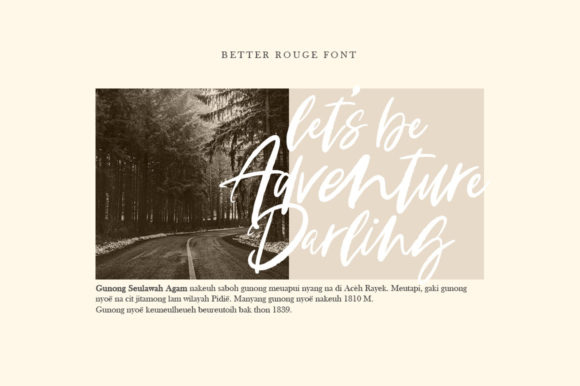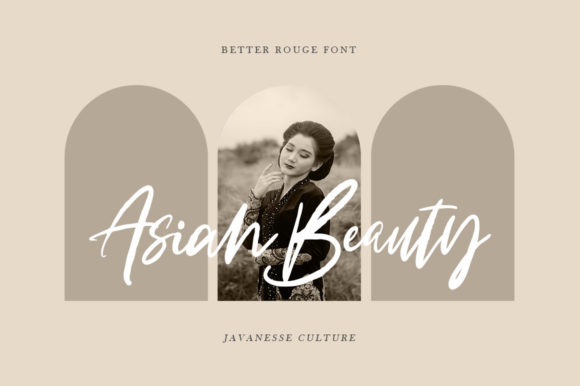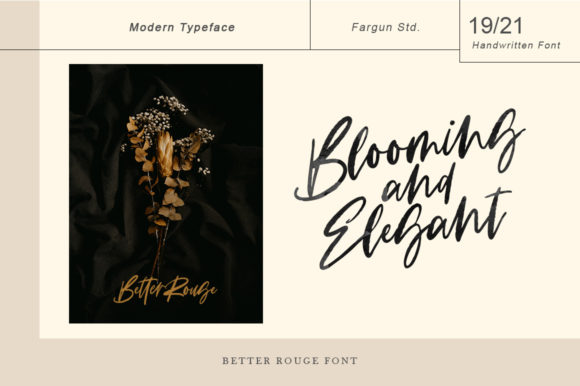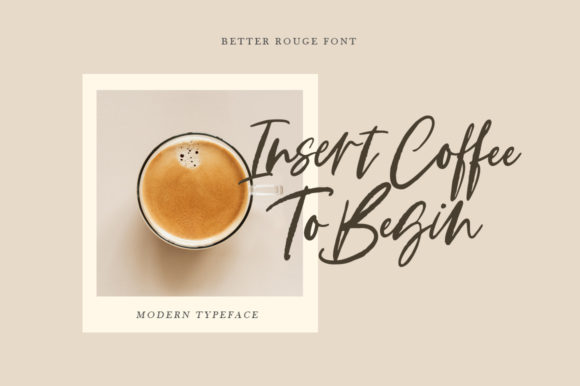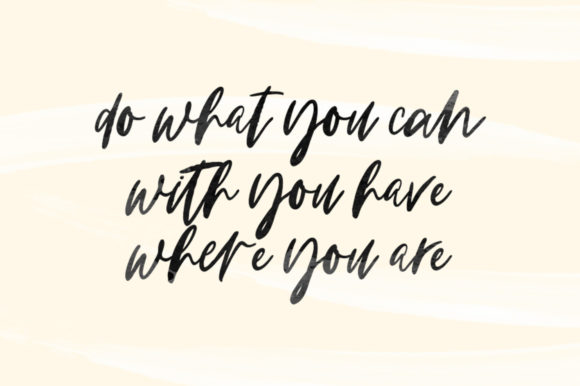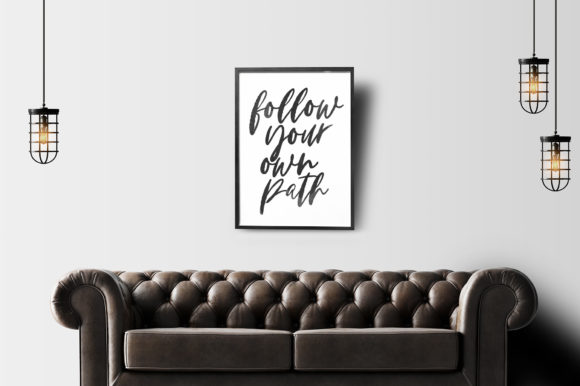
Discover the Magic of Better Rouge Font
Have you ever been working on a project, and suddenly, a burst of inspiration strikes? You envision the perfect combination of colors, textures, and typography, and your creativity goes into overdrive. For designers, these moments are what make the craft so rewarding.
One of the most crucial elements in bringing your vision to life is the font you choose. This is where the Better Rouge Font comes in – a stylish handwritten font that exudes confidence, authenticity, and charm. Perfect for delivering any message with a personal touch, this font is ideal for crafting ideas that range from cards and branding to labels and beyond.
As a designer, you know the value of having the right tools at your disposal. The Better Rouge Font is a valuable addition to any design arsenal, offering a unique and versatile solution for making your projects truly stand out.
Better Rouge Font Key Features
- Font Family: Better Rouge is a unique font family that combines elegance and sophistication with a touch of modernity.
- Character Set: The font includes a comprehensive set of characters, including Latin, Cyrillic, and Greek alphabets, as well as a range of punctuation marks and symbols.
- Size: Available in a range of weights, from Light (100) to Extra Bold (800), allowing designers to choose the perfect weight to suit their project’s needs.
- Unique Characteristics: Better Rouge features a distinctive, hand-drawn feel with subtle texture and flair, making it an excellent choice for projects that require a touch of personality.
Designer Review: Better Rouge Font
Overall, I’d say the Better Rouge Font has some great qualities, but also some areas where it falls short. Let’s dive in!
- The Better Rouge Font has a unique and stylish aesthetic, with a modern twist on the classic script font style.
- It’s highly legible, making it a great choice for body text in digital applications.
- The font includes a wide range of languages, including Cyrillic and Greek alphabets.
- The Better Rouge Font can feel a bit too ornate at times, making it difficult to read in certain contexts.
- The font family is limited, with only a few weights and styles available.
- Some users may find the font’s unique style to be too distracting or attention-seeking.
Overall, I think the Better Rouge Font is a solid choice for designers looking for a stylish and modern script font. While it may not be perfect, it’s definitely worth considering for the right project. With a bit of restraint and careful application, the Better Rouge Font can be a real showstopper.
Tips for Getting the Most Out of Better Rouge Font
Use the Better Rouge Font for headings and titles to add a touch of elegance to your design.
Combine the Better Rouge Font with other fonts to create a unique and visually appealing typography.
Experiment with different font sizes and styles to find the perfect balance for your design.
Use the Better Rouge Font for:
Headings and titles
Branding and logos
High-end marketing materials
Alternatives to Better Rouge Font
Playfair Display is a luxurious and elegant font ideal for use in high-end branding, magazines, and packaging. It’s perfect for designers who want to add a touch of sophistication and refinement to their designs. Compared to Better Rouge Font, Playfair Display has a more classic and traditional feel, while Better Rouge Font has a more modern and edgy vibe.
Montserrat is a modern sans-serif font that’s perfect for use in digital design, such as websites and mobile apps. It’s highly legible and works well in a variety of contexts, from headings to body text. Compared to Better Rouge Font, Montserrat is more versatile and can be used in a wider range of designs, while Better Rouge Font is more suited to specific niches like fashion and beauty.